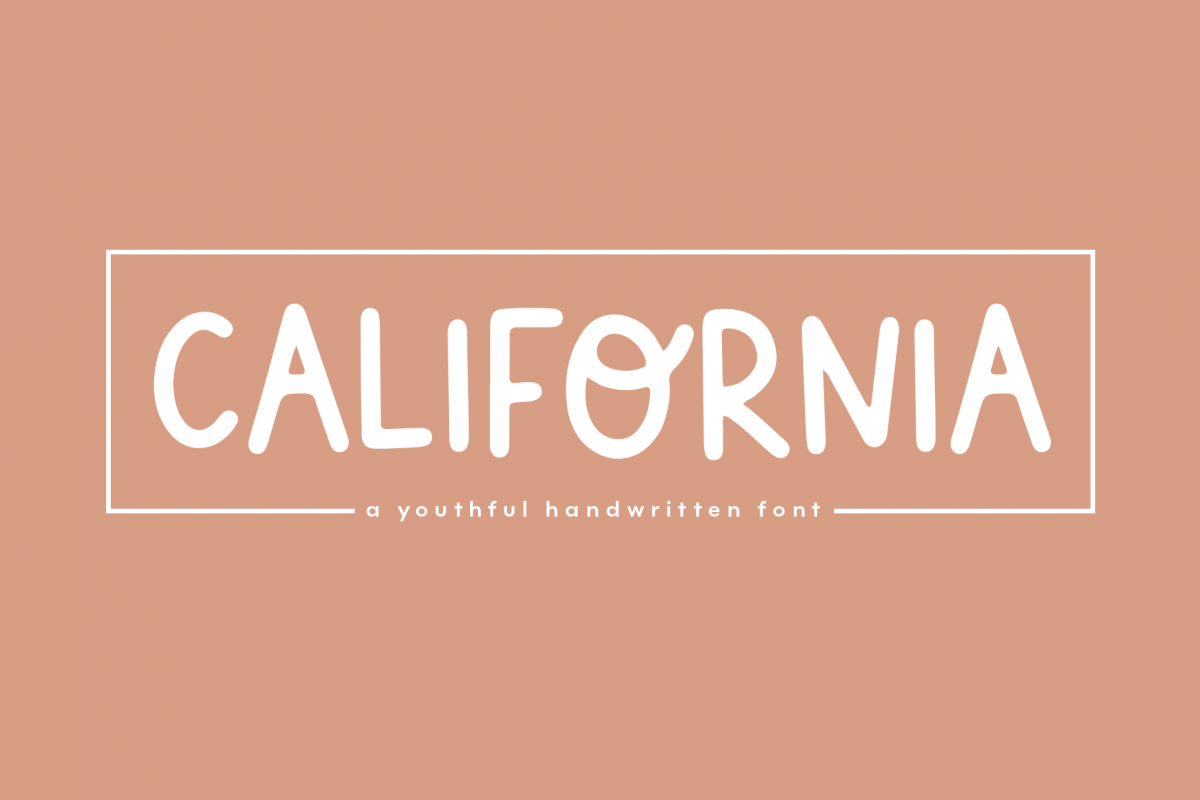
California - A Handwritten Font
California is a handwritten font with big, quirky letters.
This font is perfect for quotes, headings, blogs, logos, invitations and more!
This font does include accent characters.